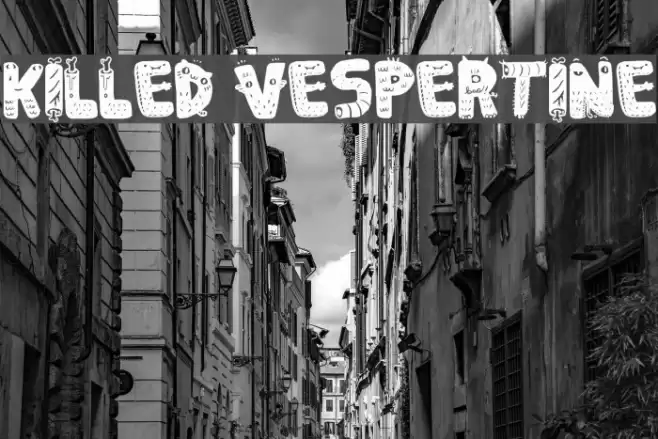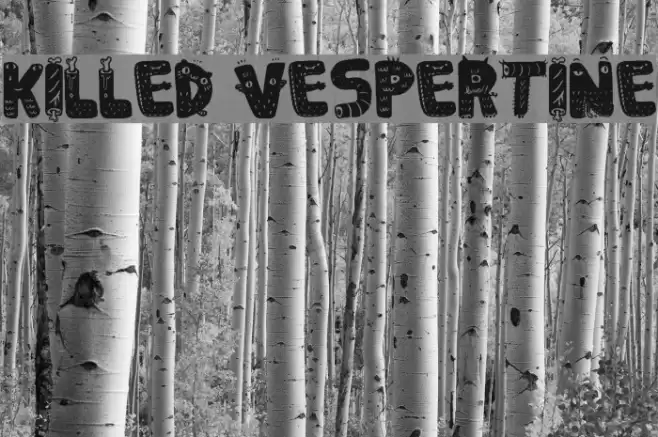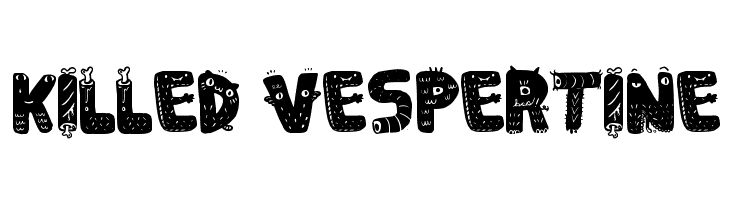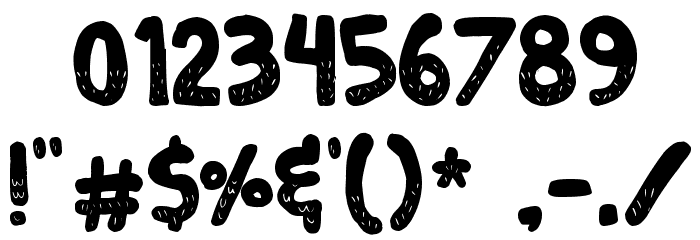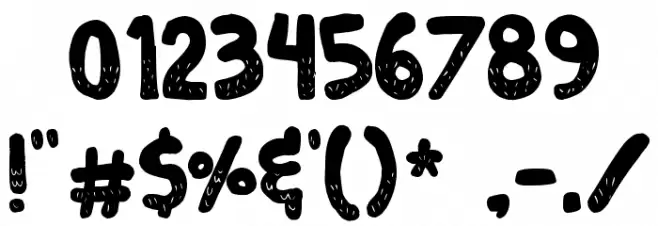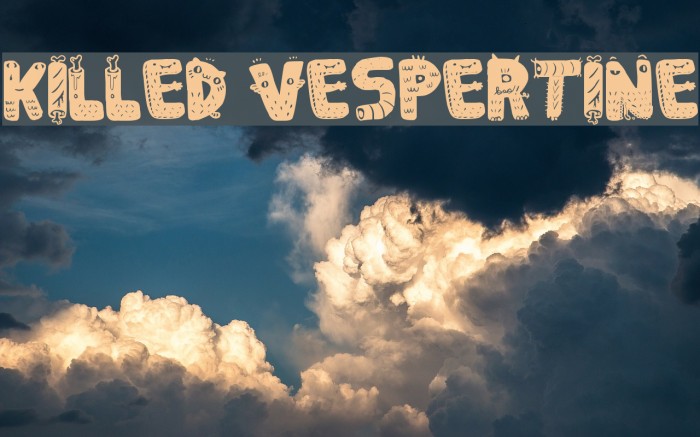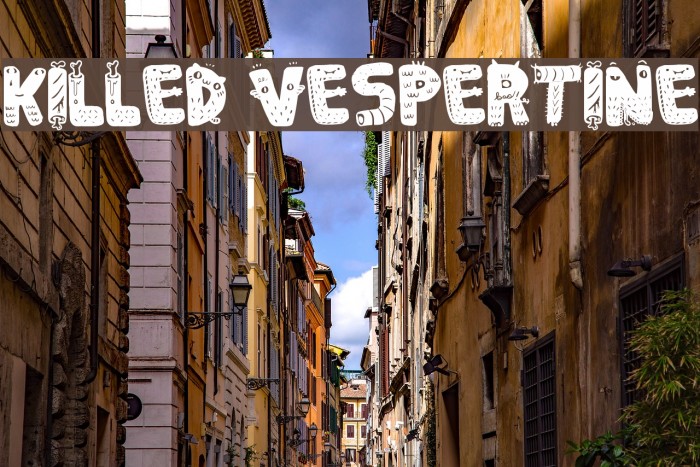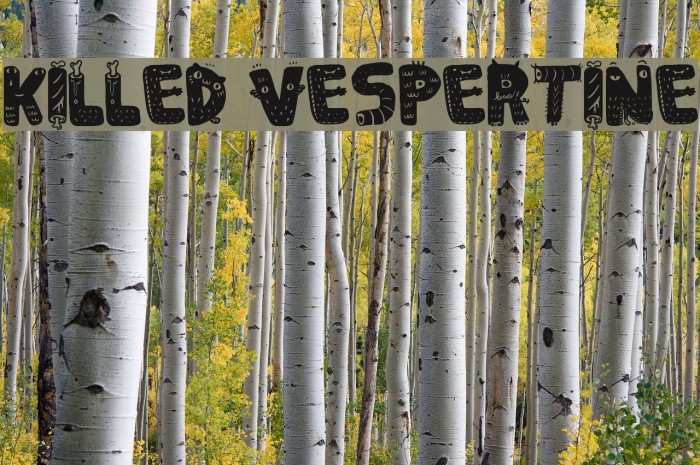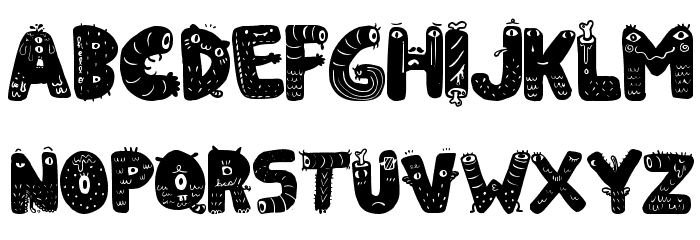
Killed Vespertine Font
Killed Vespertine Description
This font is a playful and whimsical display typeface characterized by its bold, decorative style. Each character is uniquely designed with intricate patterns and quirky elements, giving it a lively and animated appearance. The letters are filled with various textures and motifs, such as stripes, dots, and swirls, which add to its dynamic and engaging look. The font's overall aesthetic is fun and imaginative, making it ideal for projects that require a touch of creativity and humor. Its boldness ensures high visibility, while the decorative elements provide a distinct personality.
A bold, whimsical display font with intricate patterns and playful elements from Cartoon fonts.
- Proposed Projects: Ideal for children's books, playful branding, party invitations, and creative posters.
- Overall Style: Playful, Whimsical, Decorative